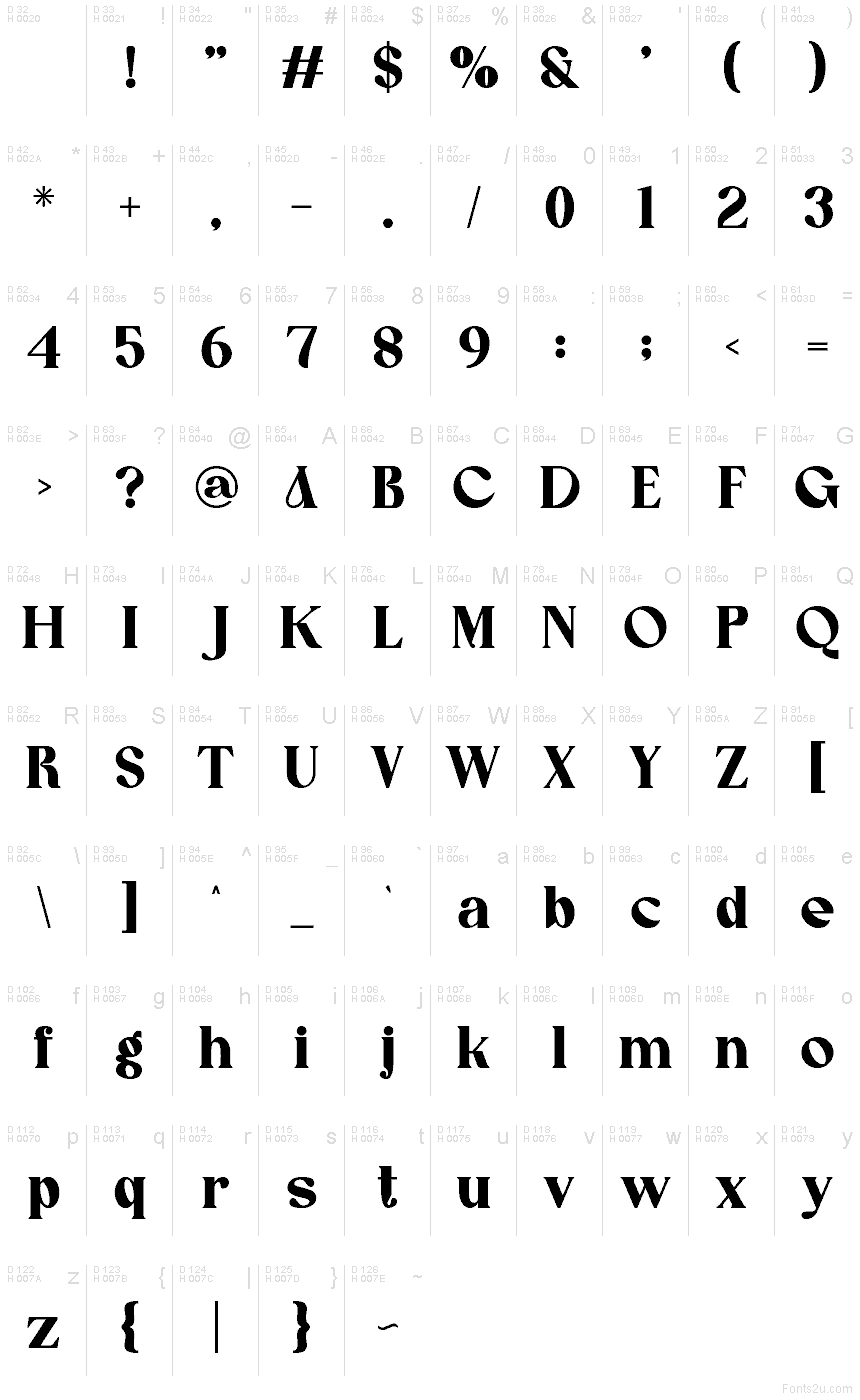
CAOOLI
Caooli font is a free serif font designed by Gilang Ternadho that combines a bold weight with an ornamental and elegant style. It thus finds the ideal balance of readable text and artistic flair within the same design. Caooli is further equipped with beautiful swashes to add decorative elements to any project.
Use this vintage-inspired typeface in art exhibits, publication covers, menus, event invitations, literature books, banners, posters, brand packaging designs such as wine labels or cigar boxes, logos and visual identities.